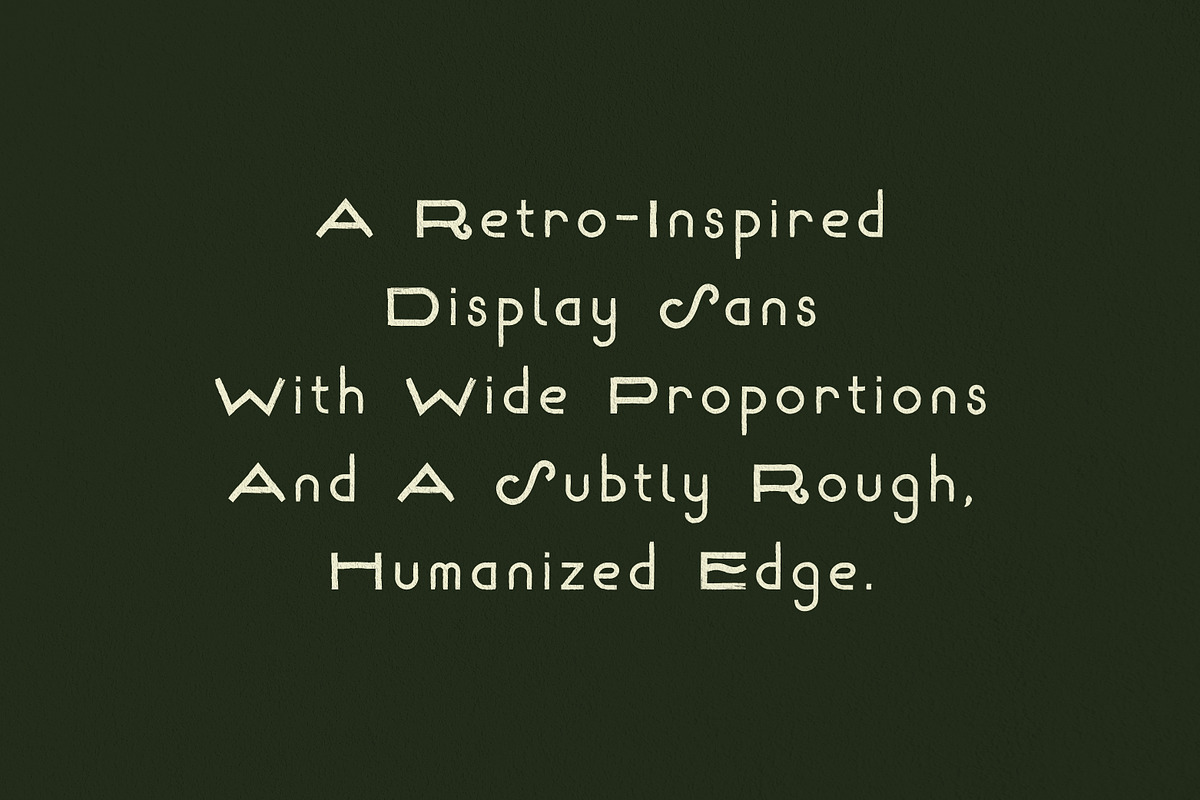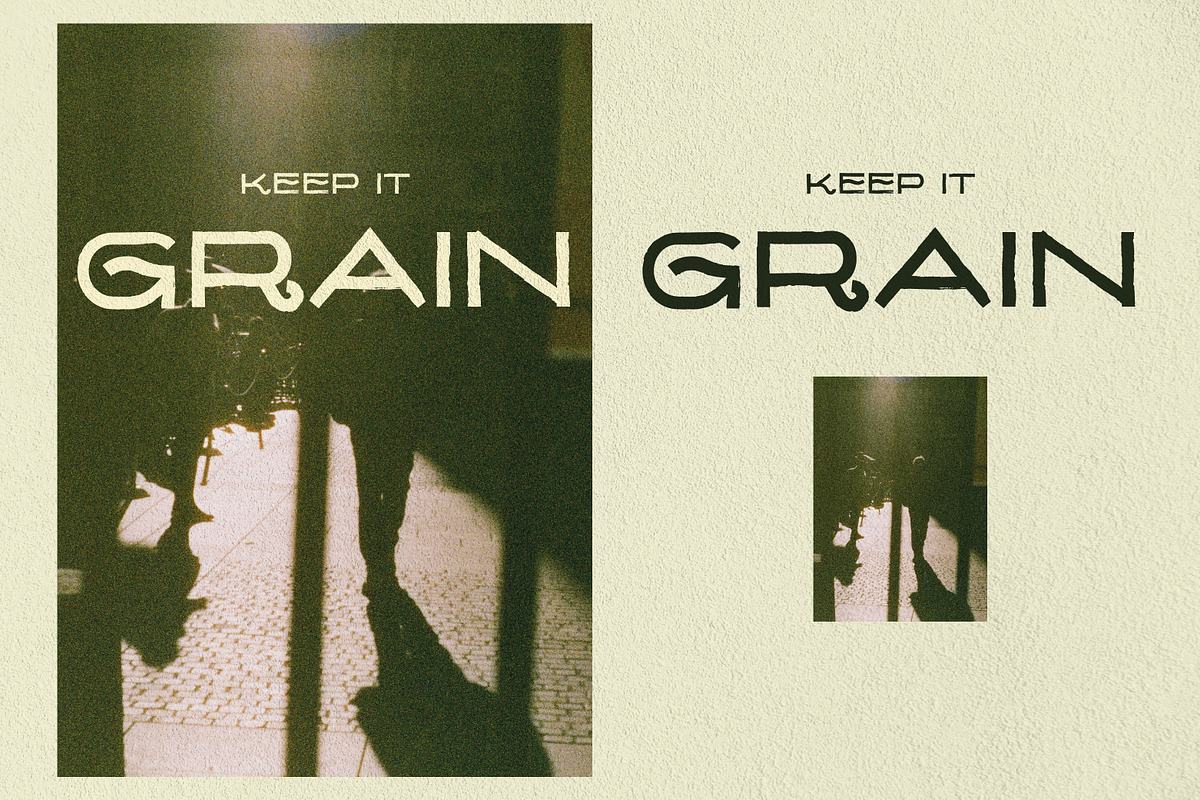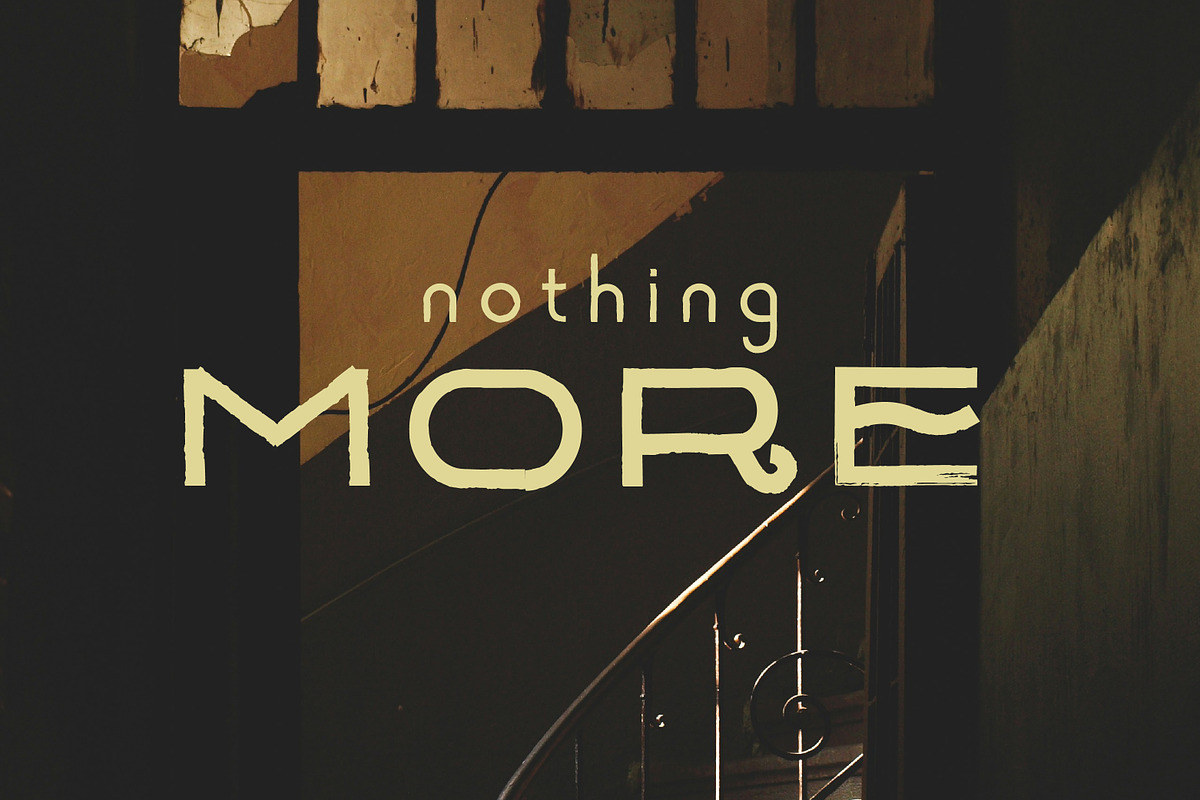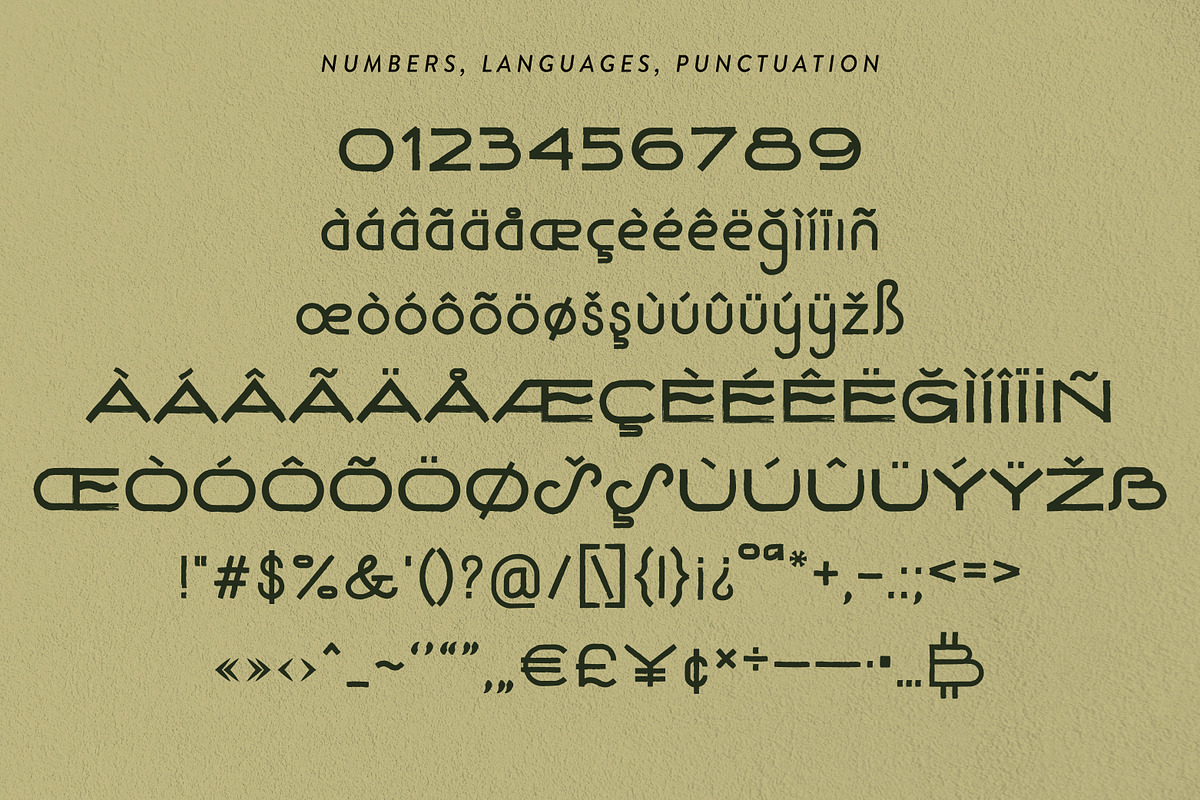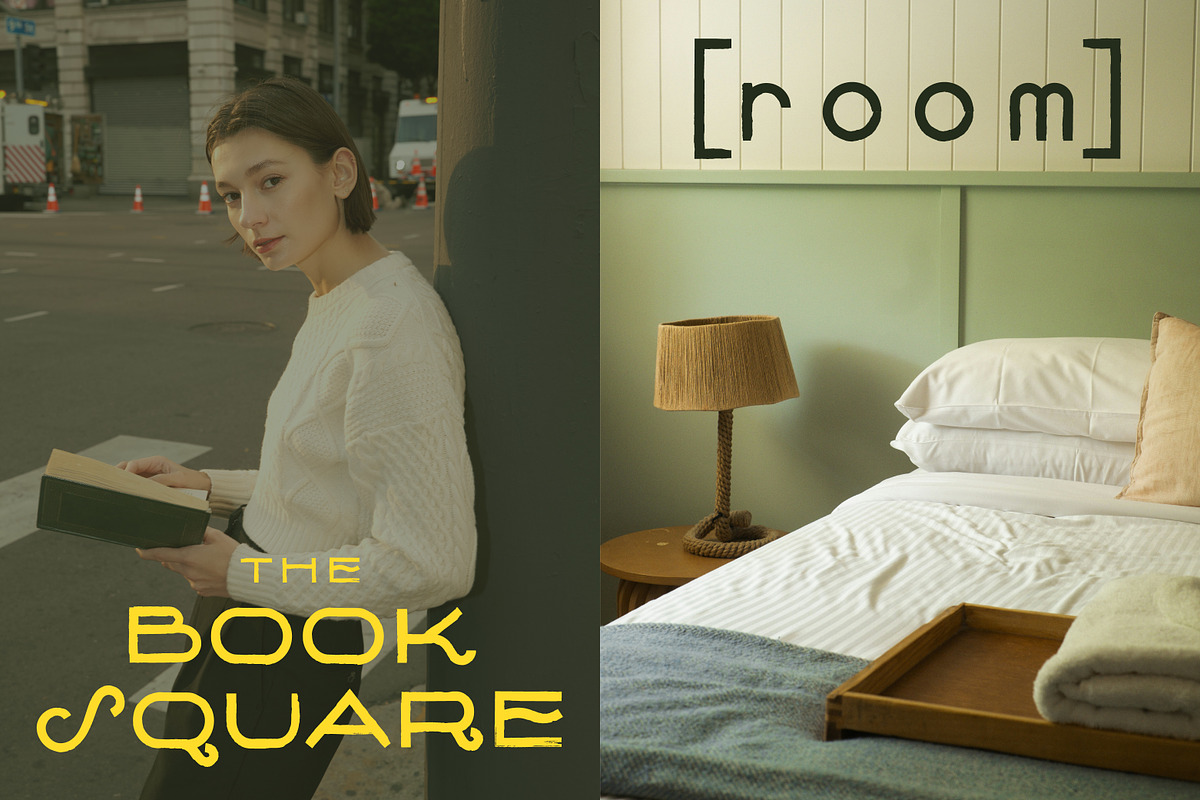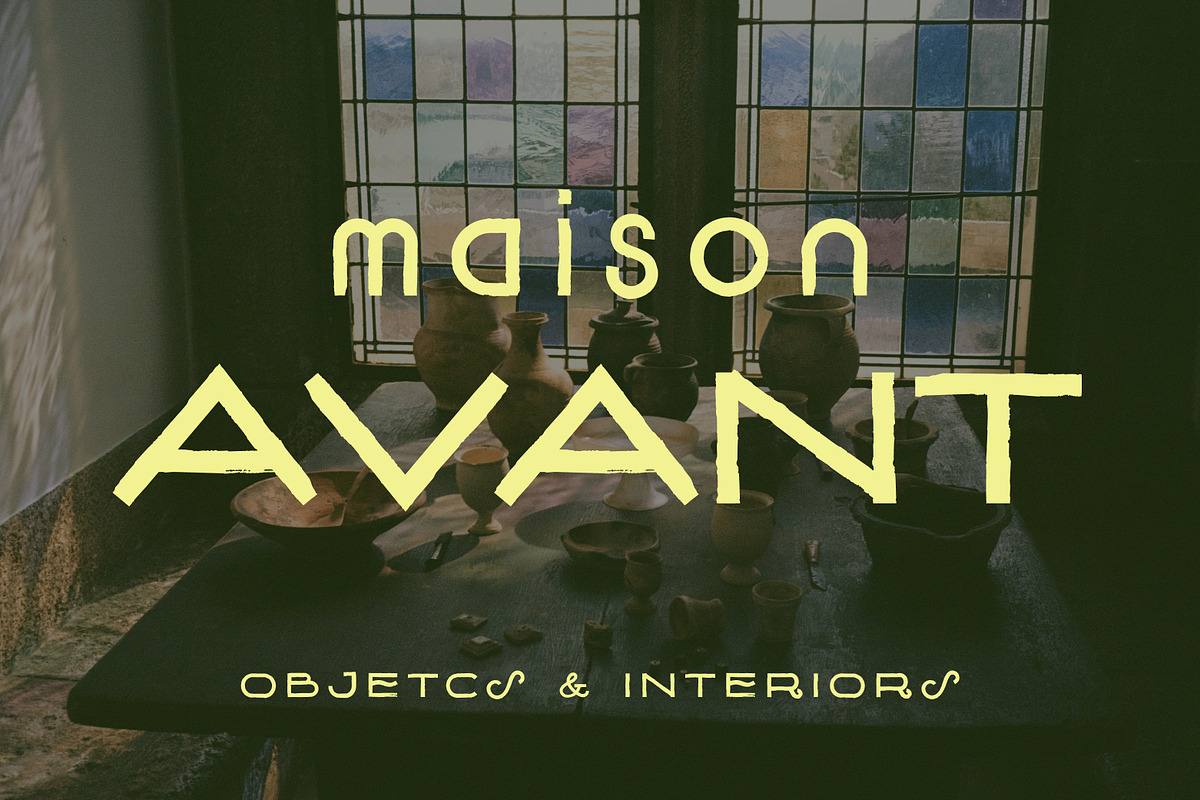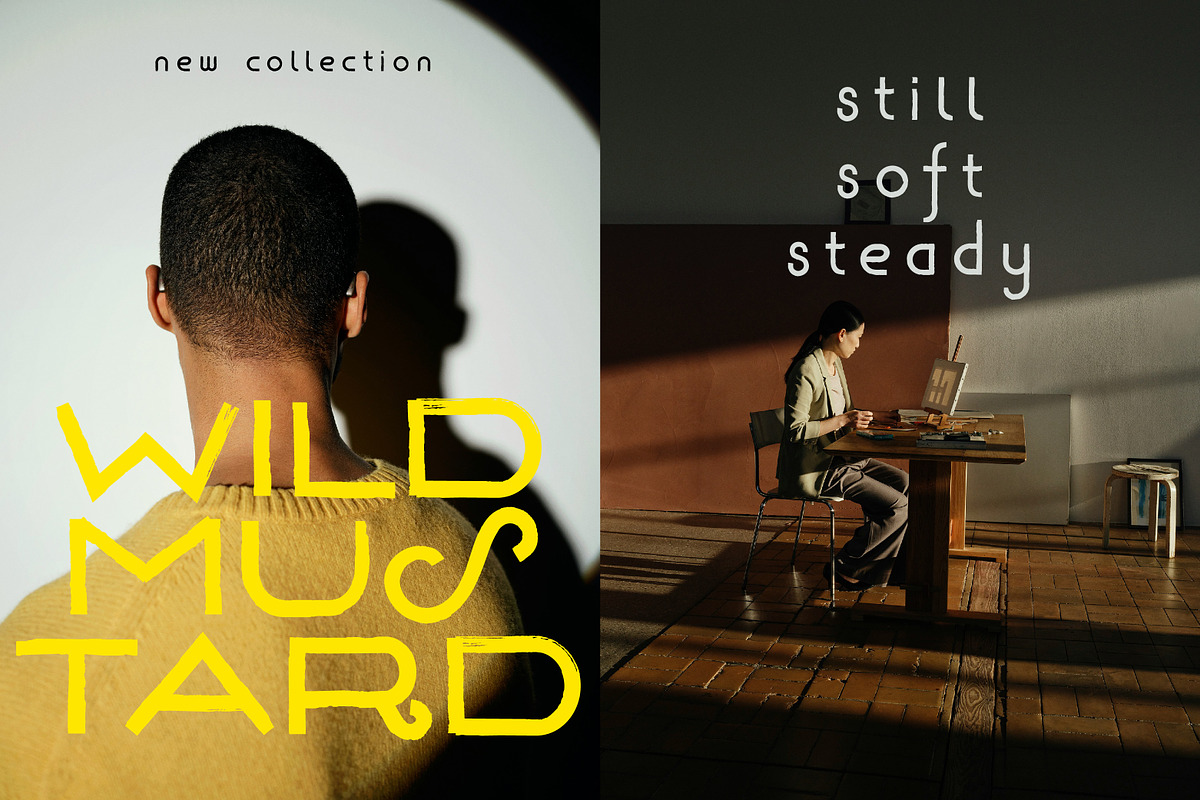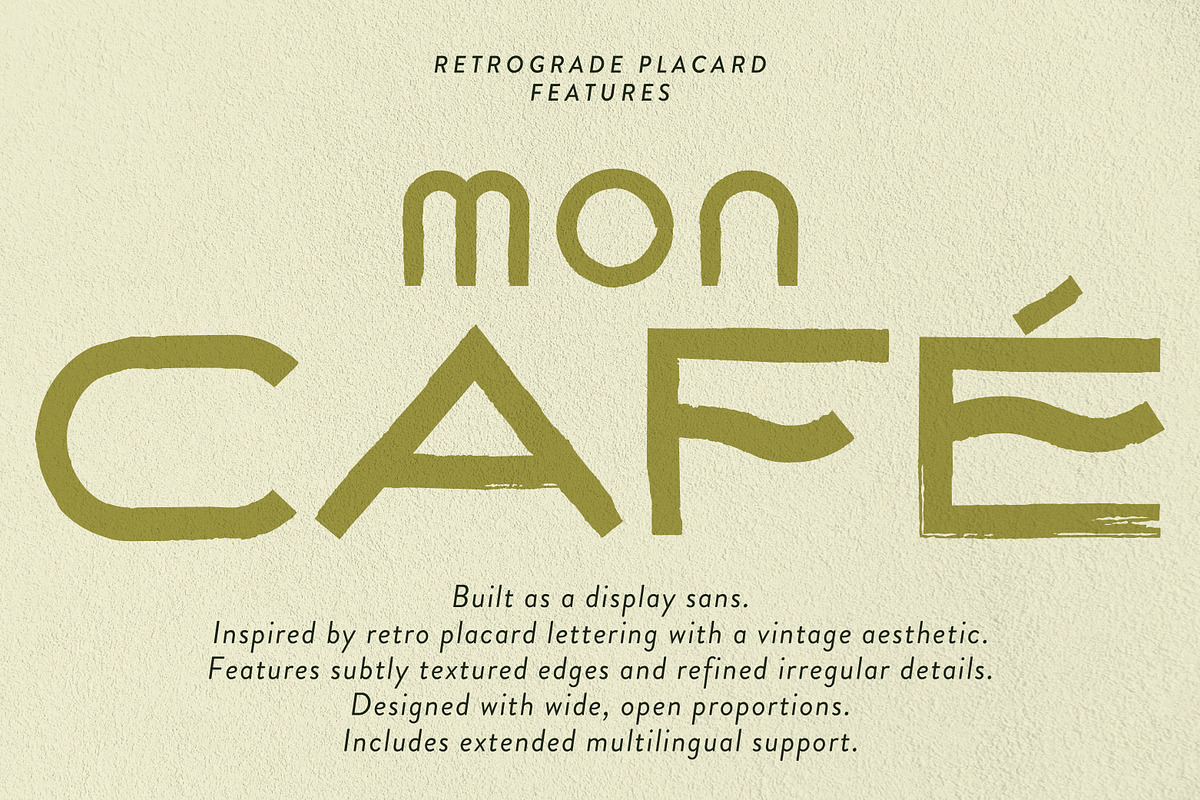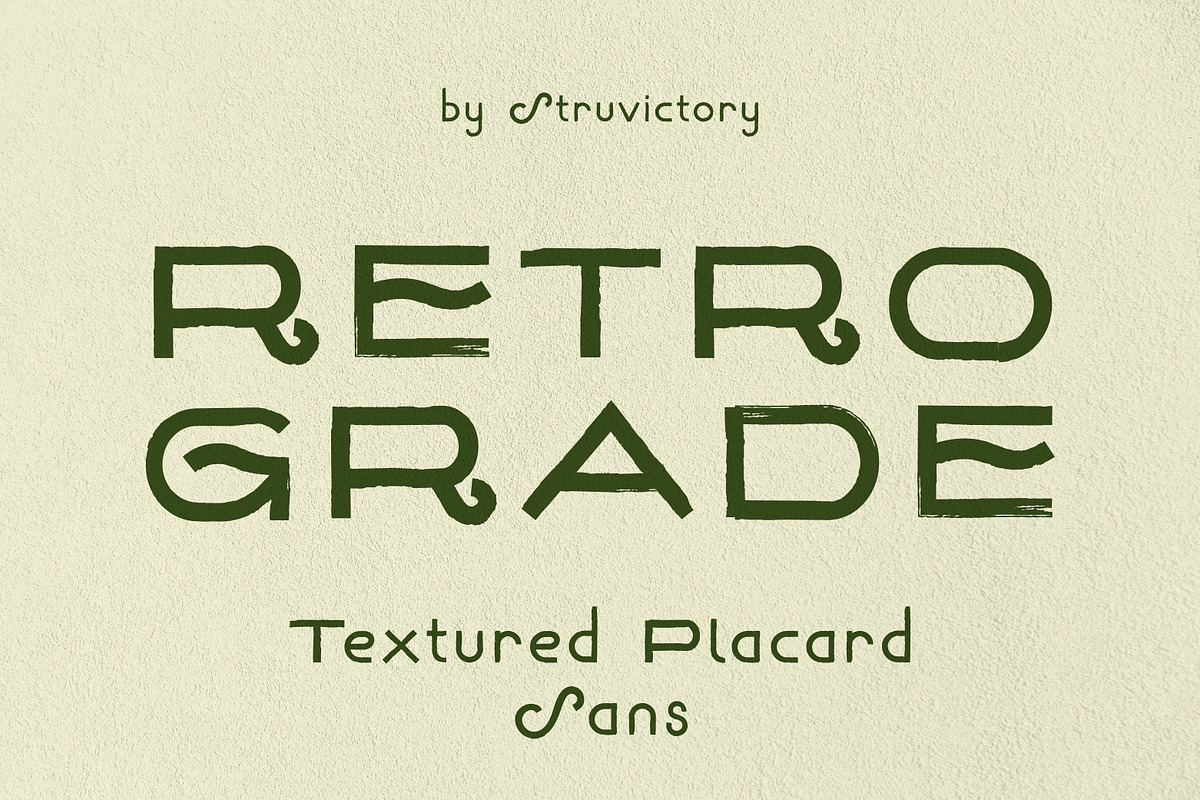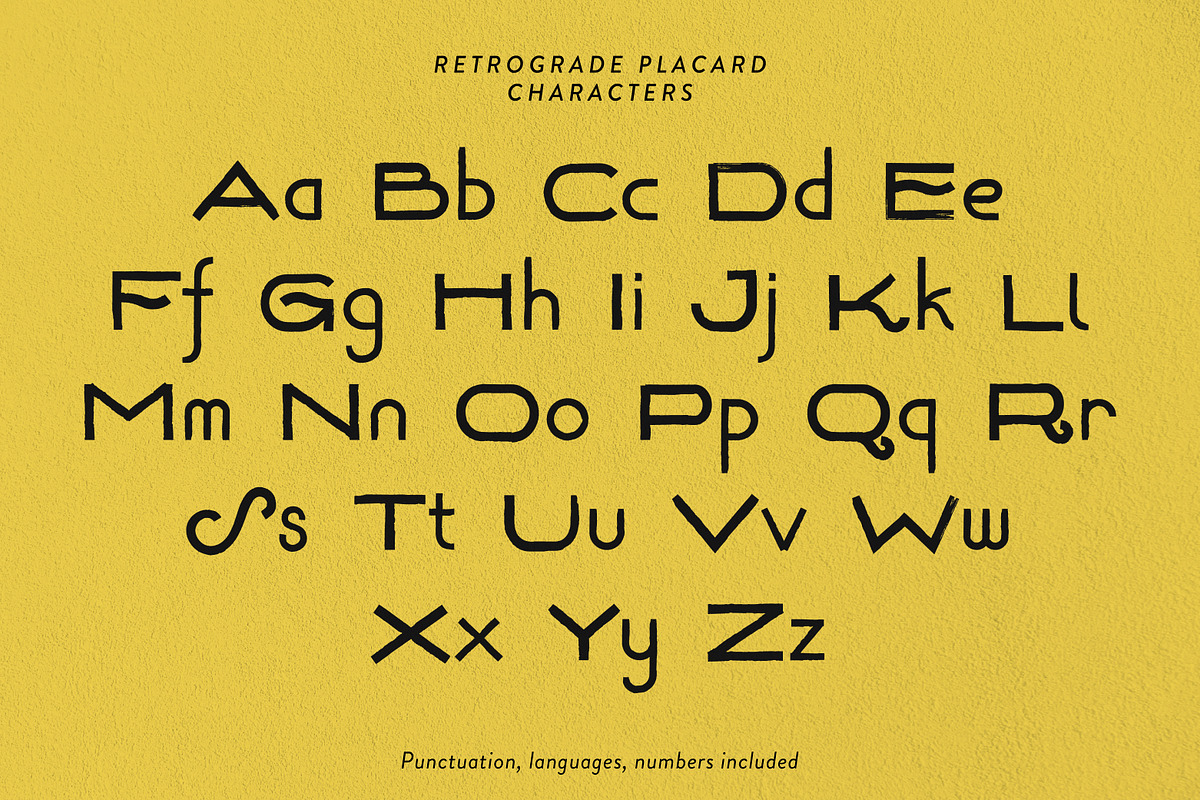
Retrograde Wide Vintage Placard Sans
Retrograde Placard is a retro-inspired display sans rooted in placard lettering and vintage print aesthetics. It features wide proportions, structured forms, and subtly textured edges that introduce a natural, slightly imperfect rhythm. Balancing clarity with character, the design feels both graphic and human, making it well-suited for posters, branding, packaging, and editorial layouts. With its distinctive presence and refined irregularities, Retrograde Placard brings a quiet, confident voice to modern design work.